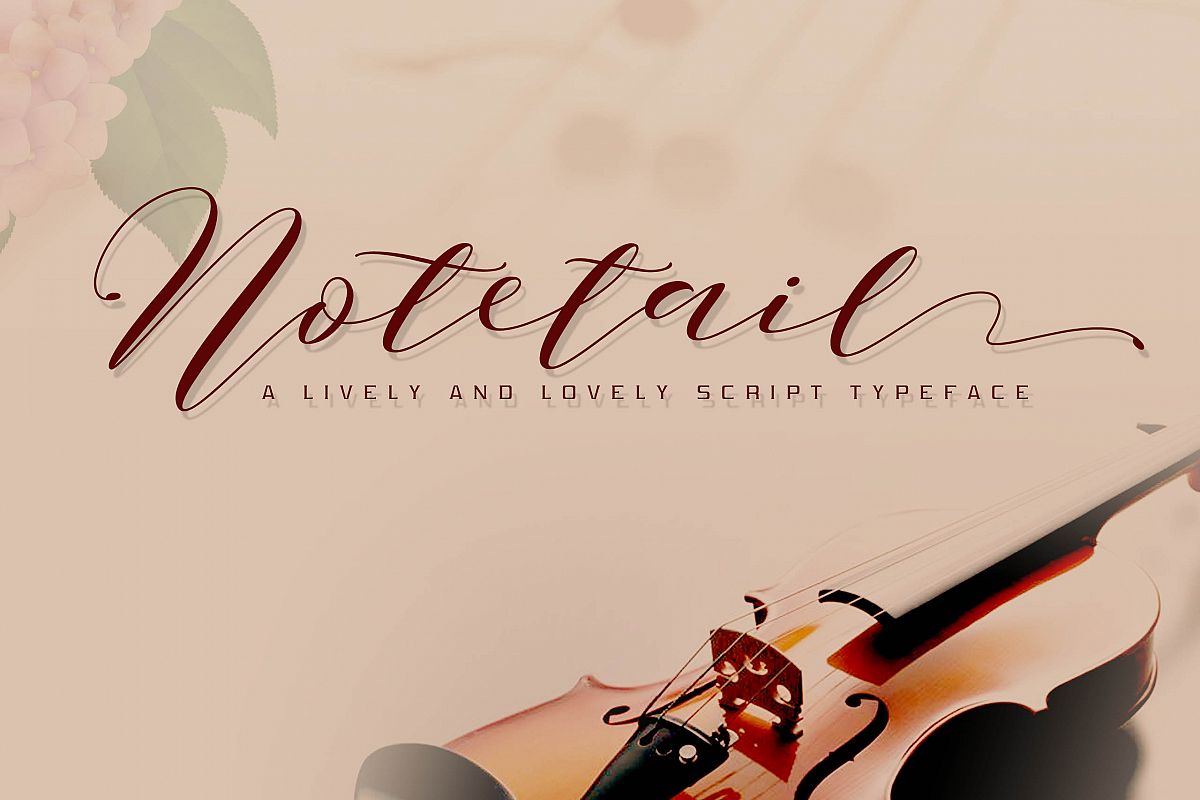
Notetail Script Typeface
NotetailStretch-Regular
NotetailBeat-Regular
Notetail Script Typeface is a lively and dragging tail note font, like a little elf in the dance, it contains two Prefix suffix changes. For logo, covers, headlines, posters, etc.Show your creativity, and dance your spirit.
It  includes 2 styles:
1. Notetail Beat.
2. Notetail Stretch.